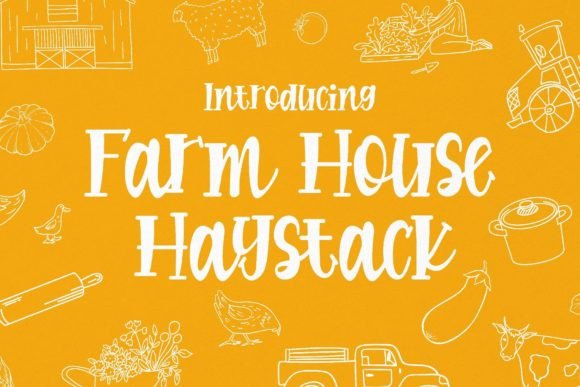
Adorn your digital creations with the captivating charm of "Farmhouse Haystack," the font that evokes the heartwarming essence of organic farmers' markets. Its handwritten style, lovingly crafted to resemble a farmer's strokes, brings your designs to life with a rustic elegance that resonates with warmth and authenticity.
With Farmhouse Haystack, you'll be able to:
- Craft eye-catching farmhouse signs that radiate a wholesome, inviting appeal, attracting customers with their rustic charm.
- Design farm-to-table menus that capture the essence of fresh, organic ingredients, creating an unforgettable dining experience for your patrons.
- Create promotional materials for your local market that exude authenticity and grace, leaving a lasting impression on potential customers.
- Add authenticity to artisanal product labels, communicating the values of your brand and the story behind your products.
- Infuse a touch of rustic charm into your social media posts, capturing the attention of your audience and boosting engagement.
Farmhouse Haystack is the perfect font for designers seeking genuine connection and authenticity in their work. Its organic charm and heartfelt strokes resonate with audiences seeking a connection to nature and the simple pleasures of life.
Embrace the beauty of Farmhouse Haystack today and let it be the heart and soul of your creative projects. Let it remind the world that the simple, genuine, and organic way of life is a treasure to be celebrated.